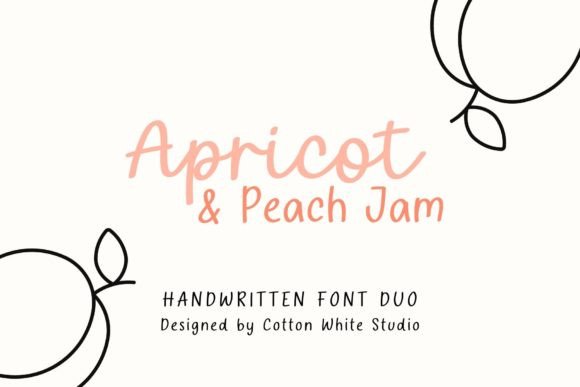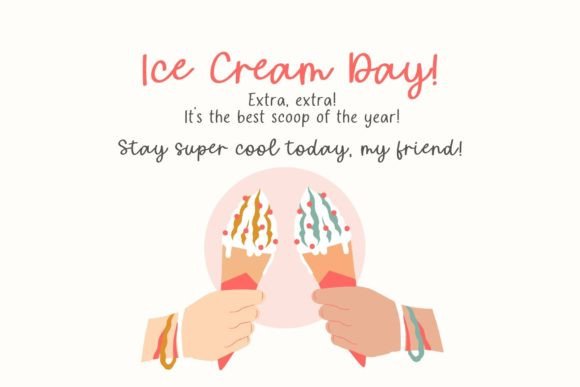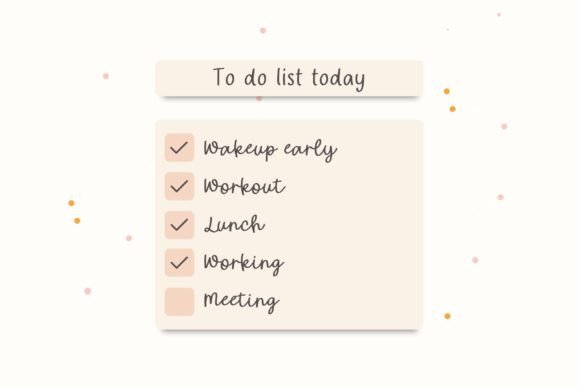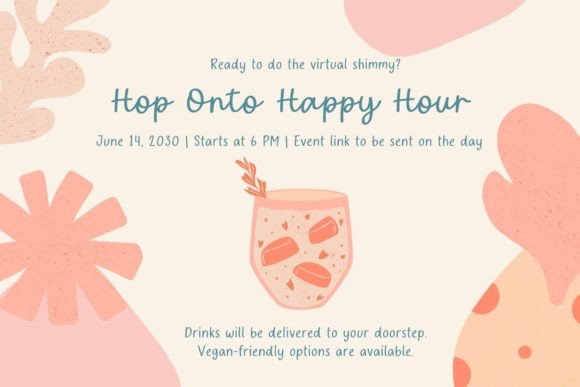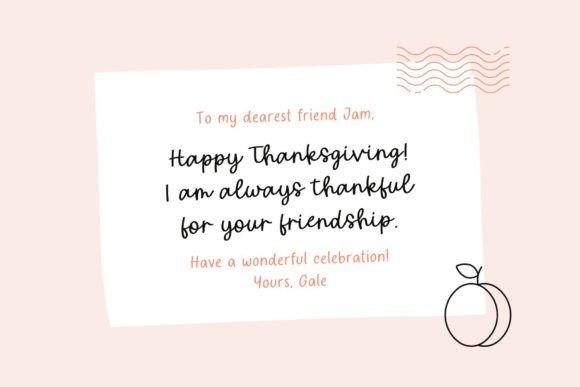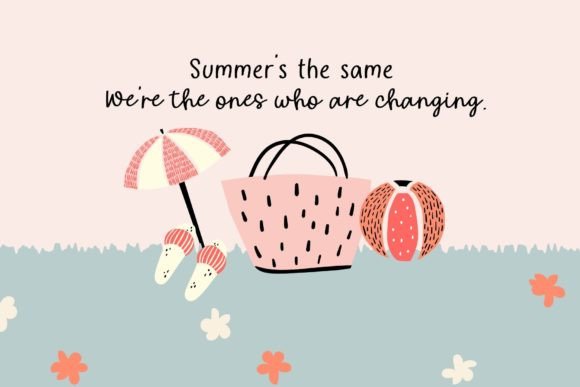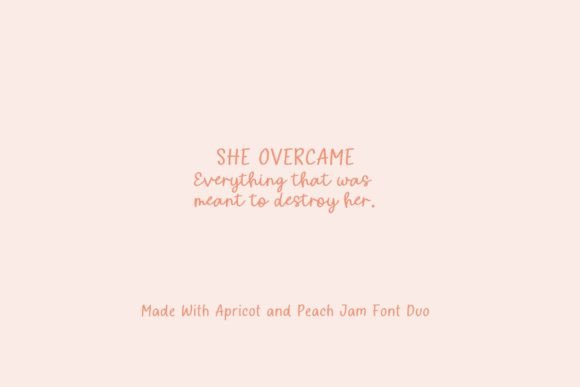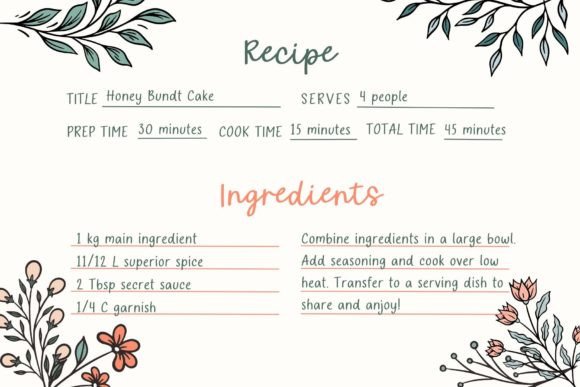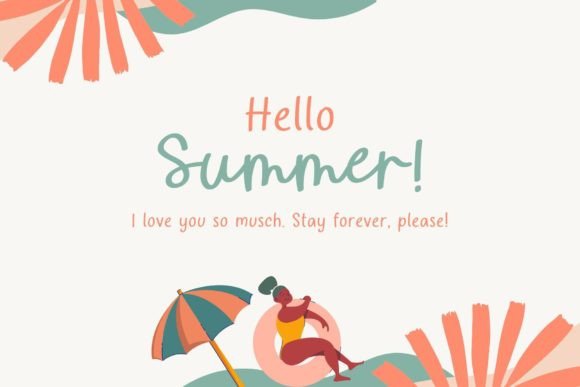
Apricot and Peach Jam Font
This handwritten font duo is perfect for creative projects that require a handwritten look. Use it for your digital planner, stickers, quotes, greeting cards, tea towels, apparel, pillows, mugs, toys, posters, baby clothing, picture books, and so much more.